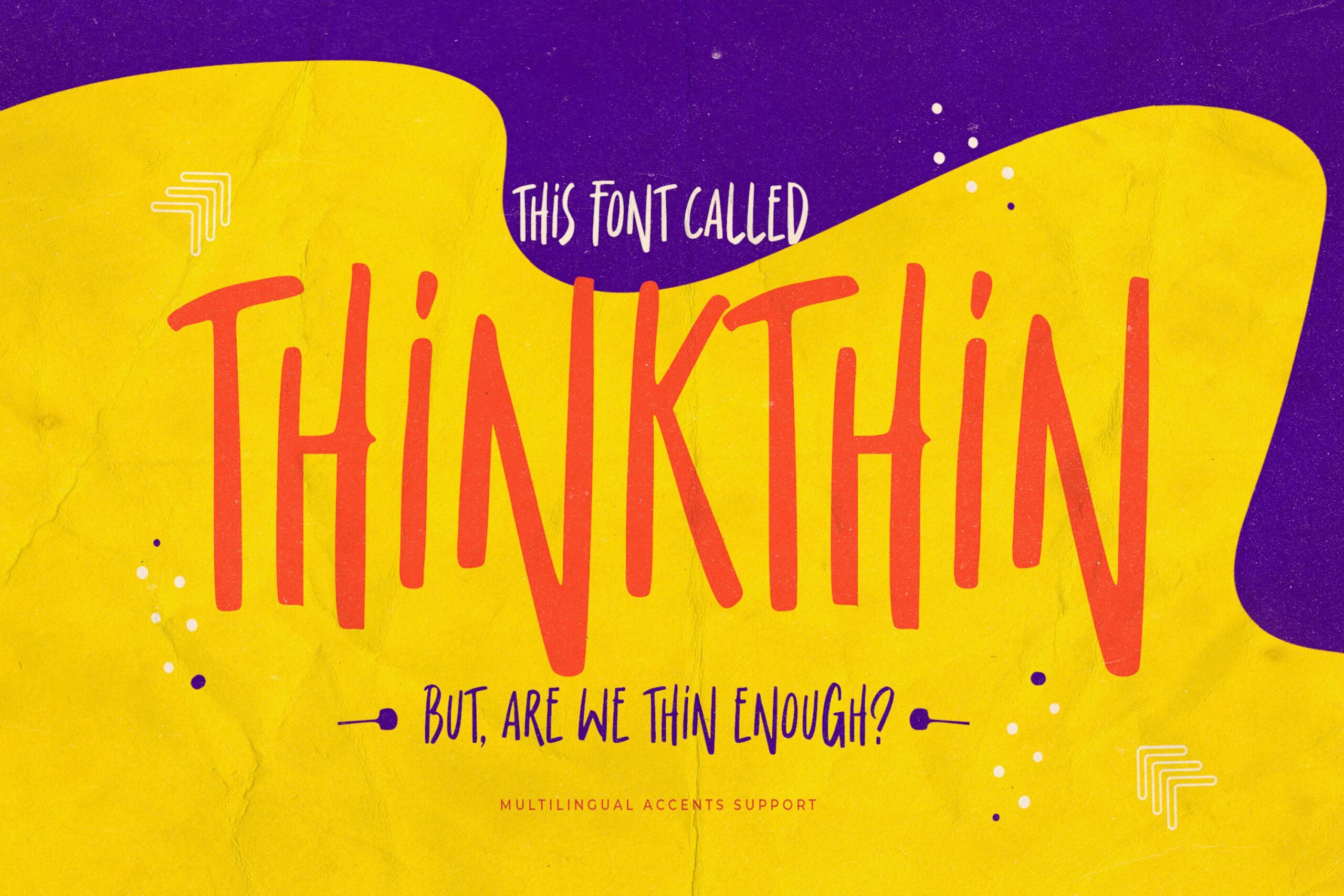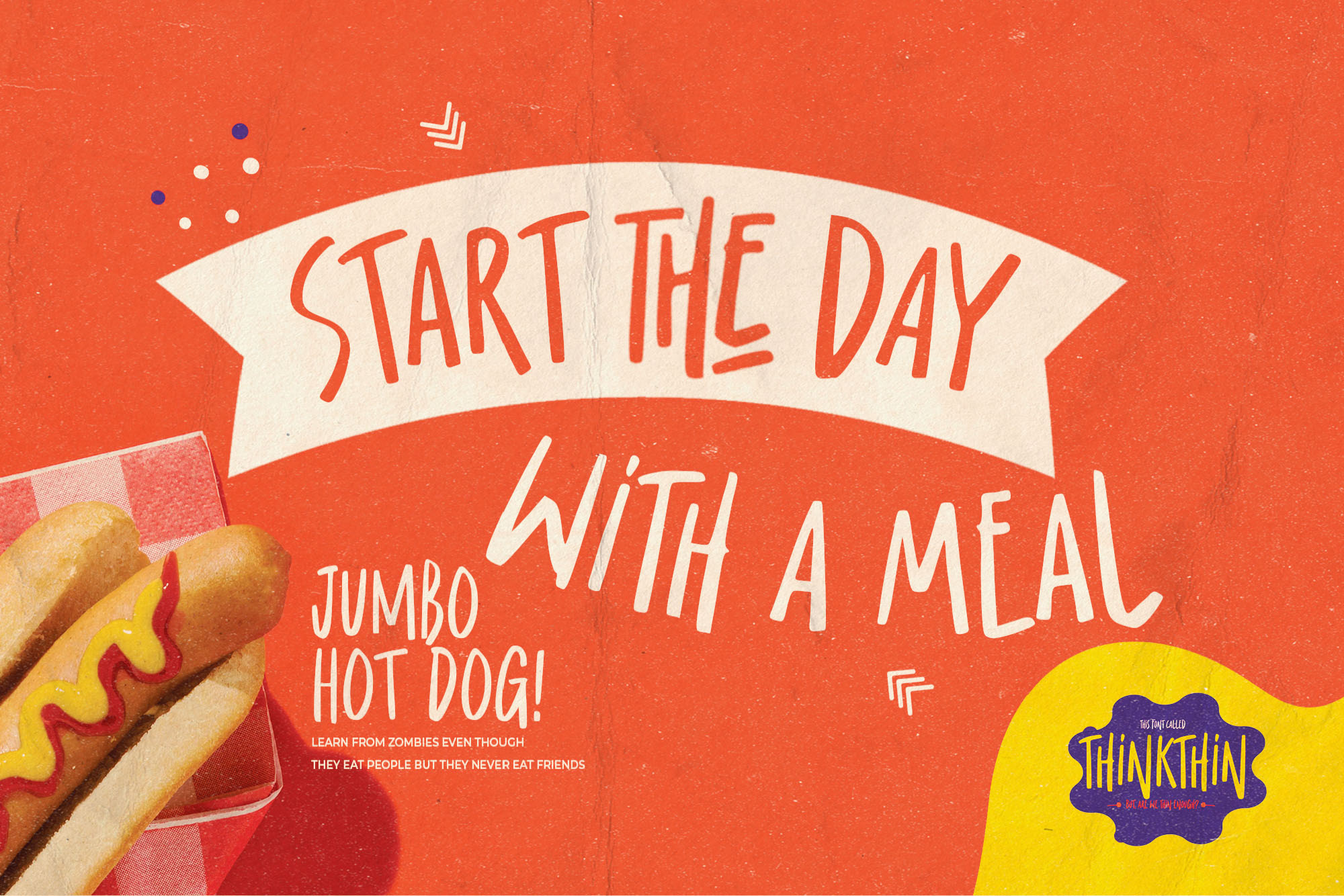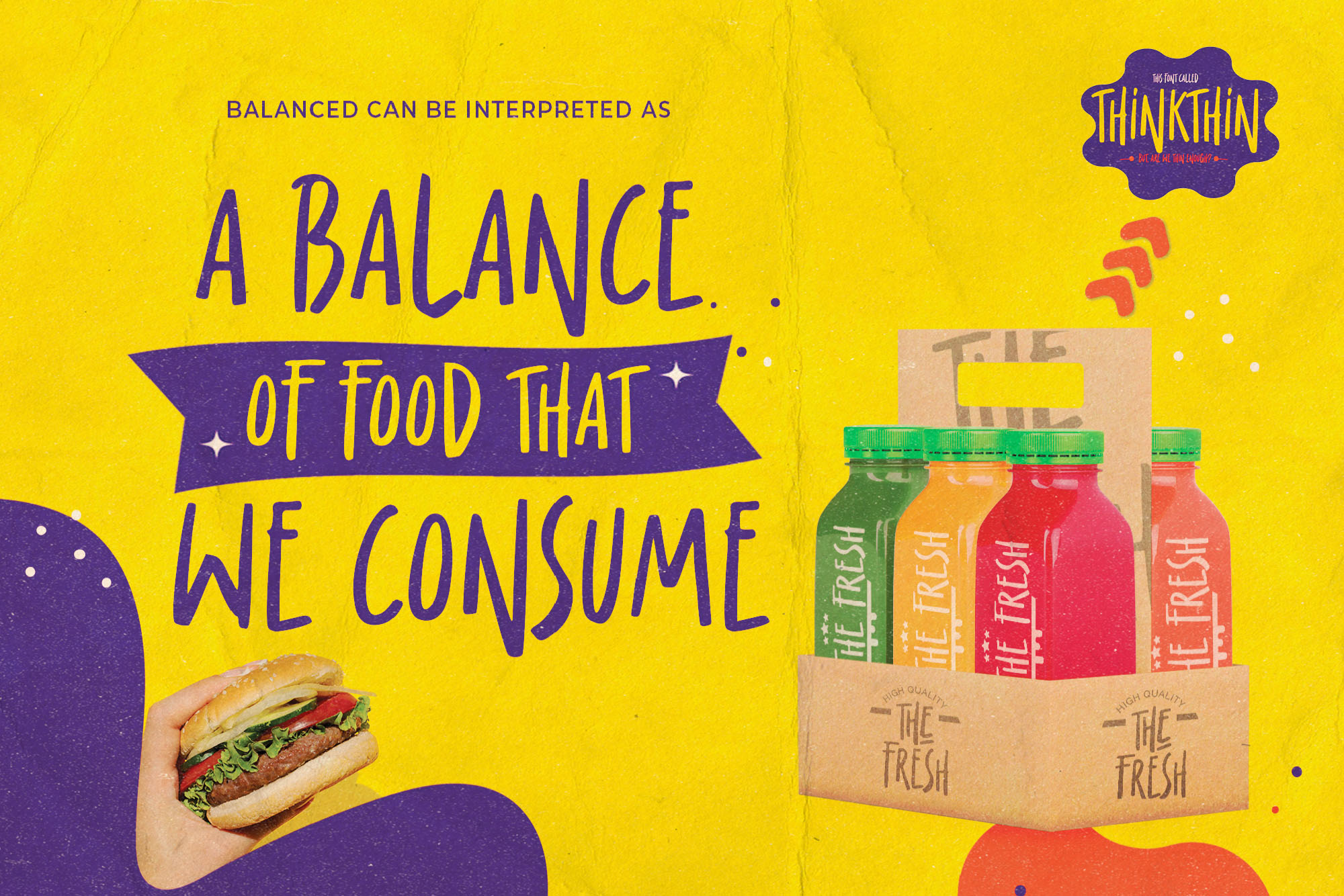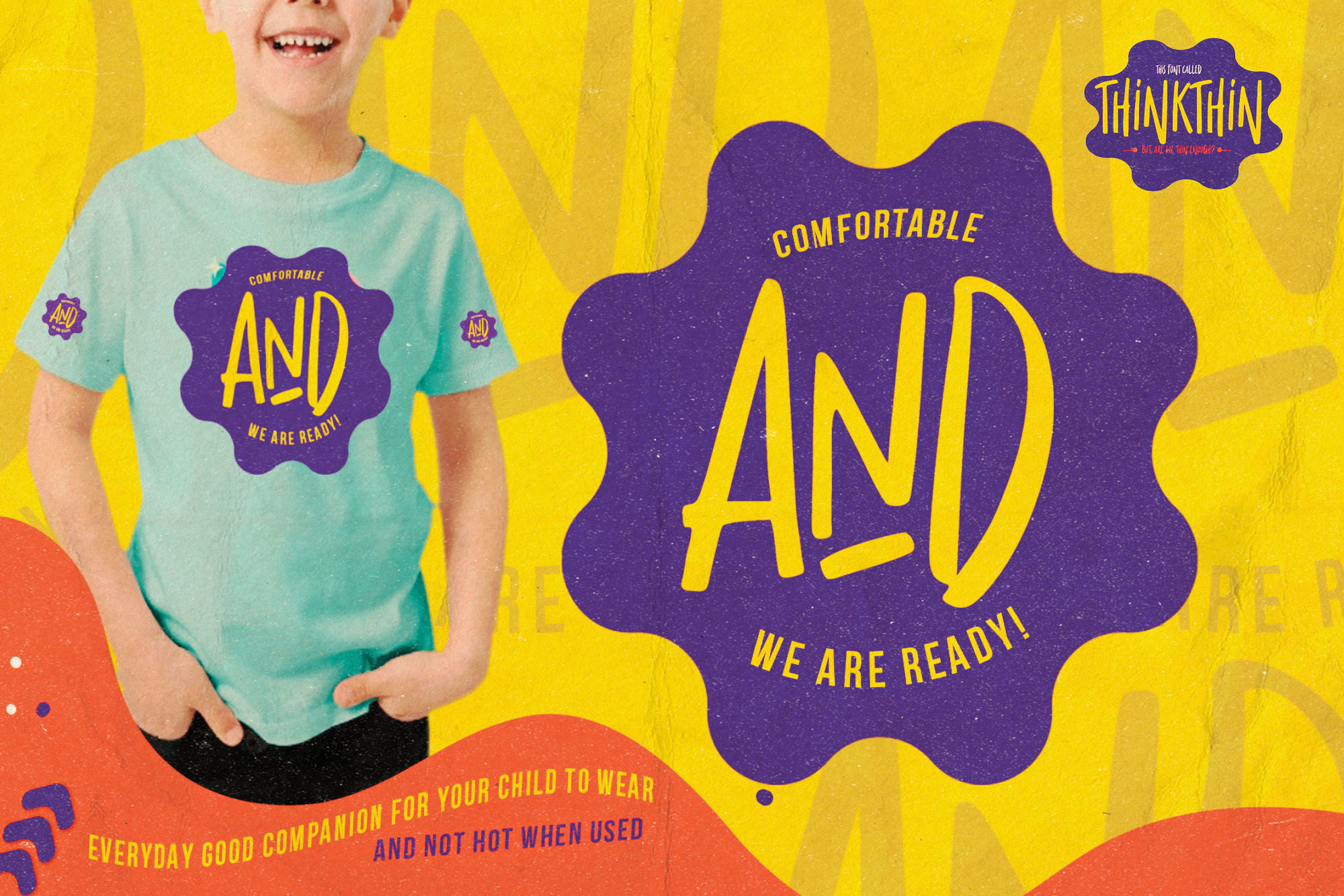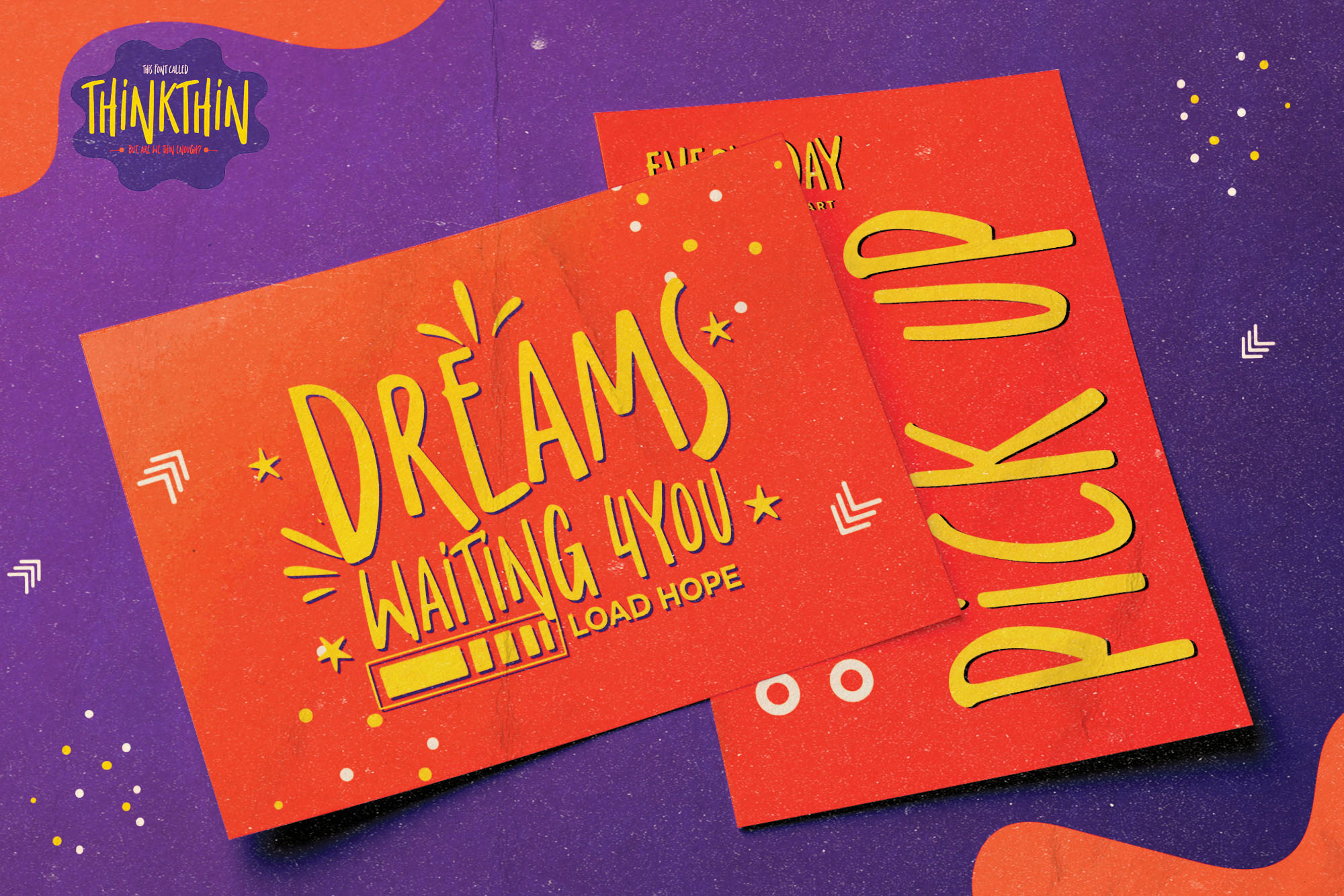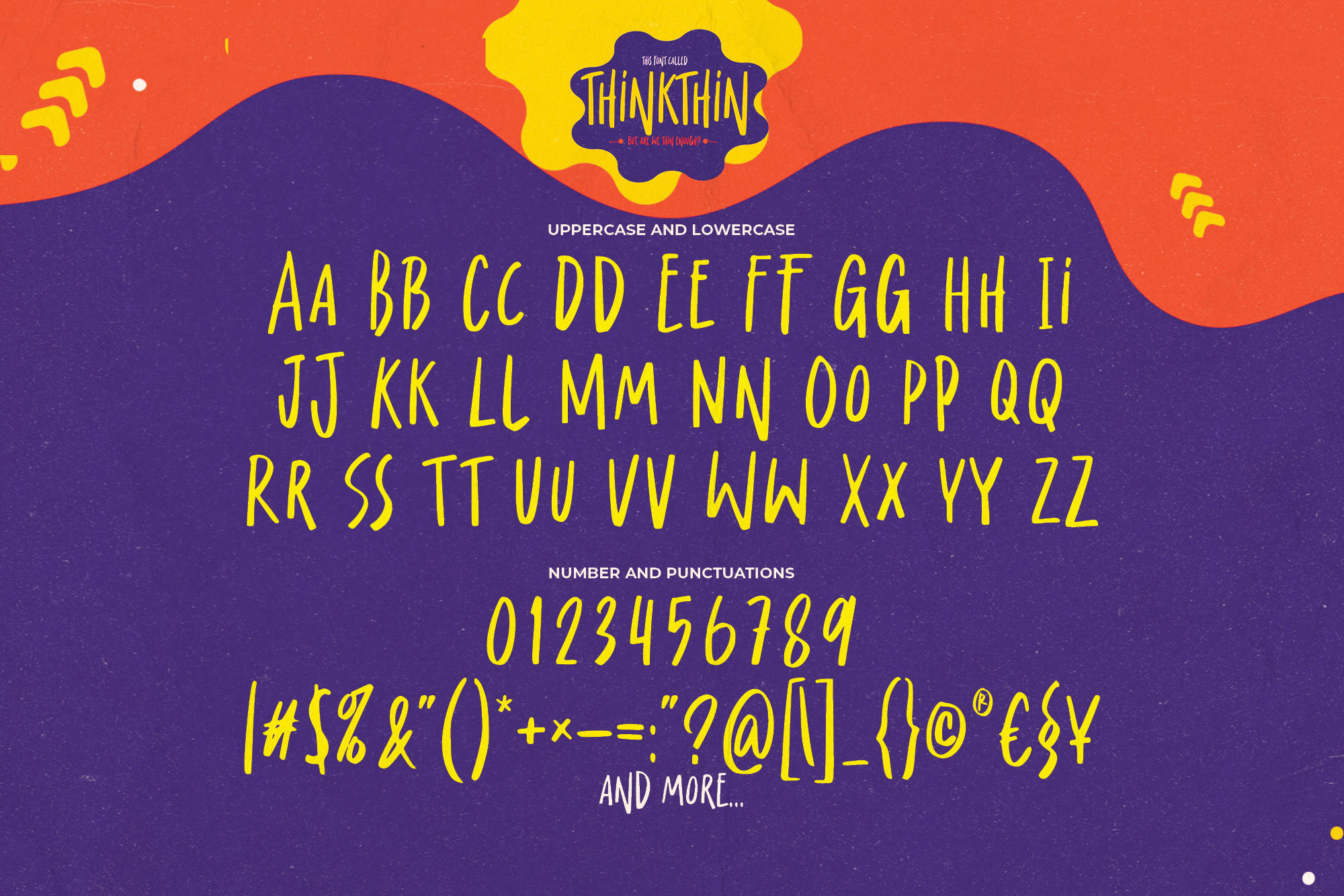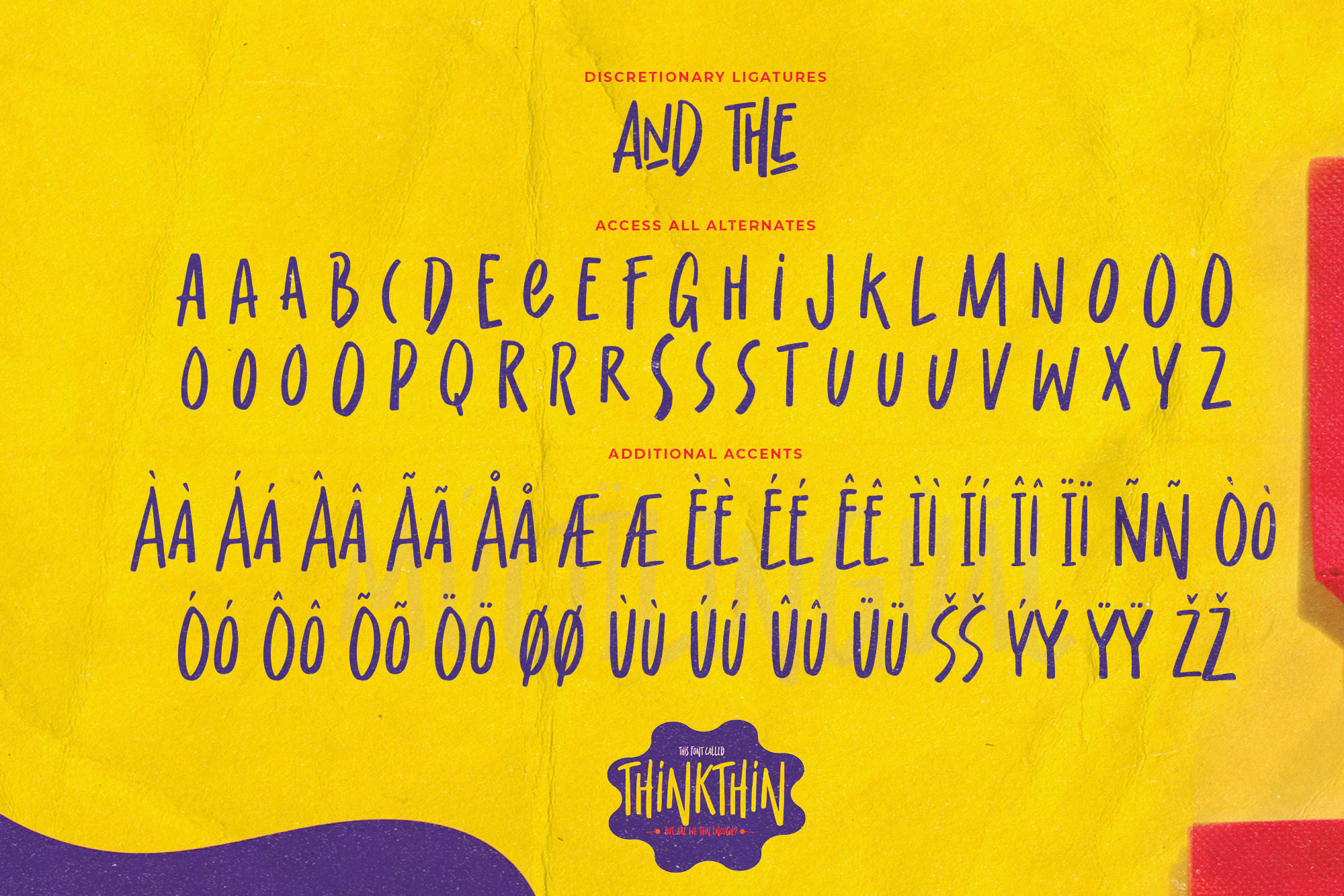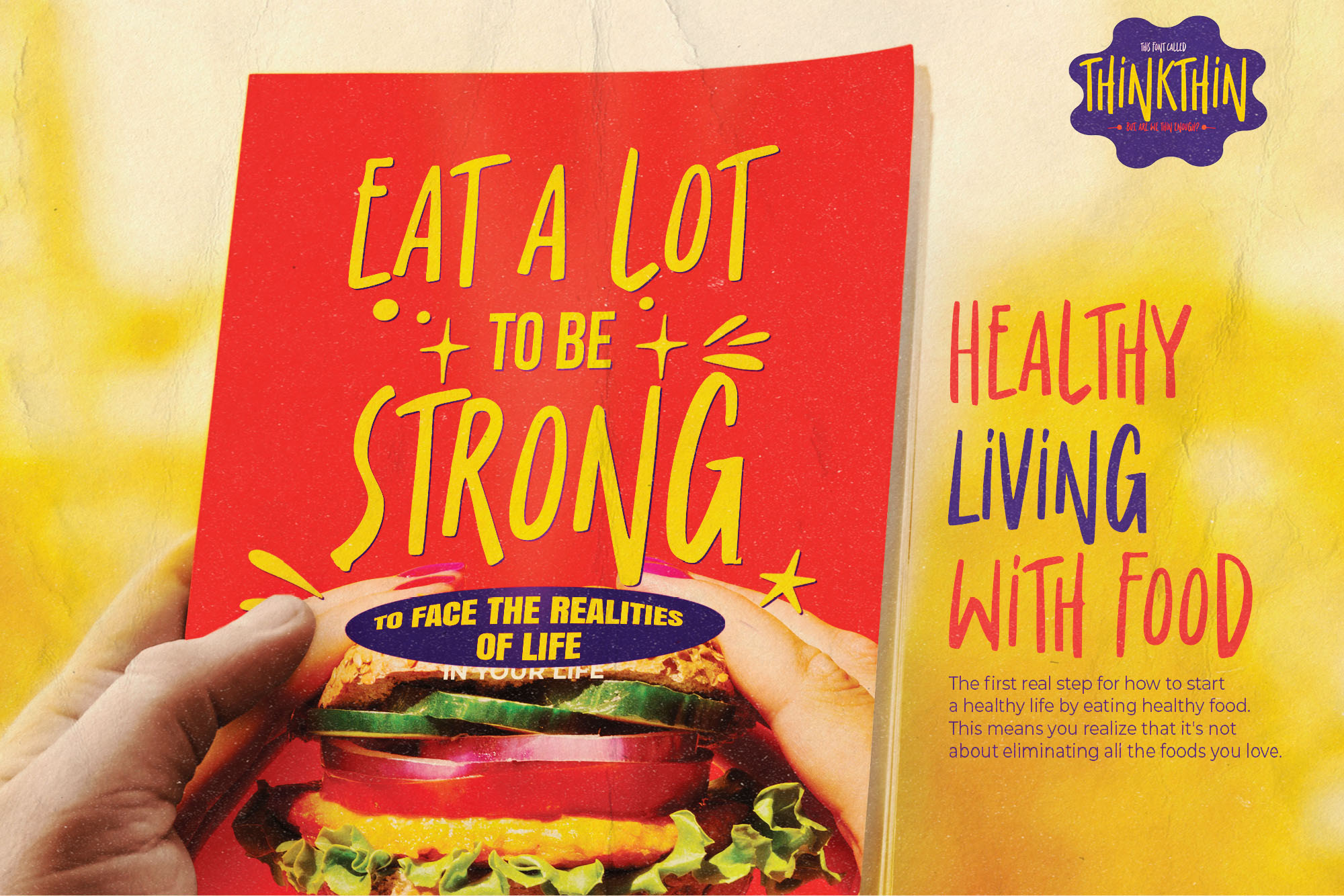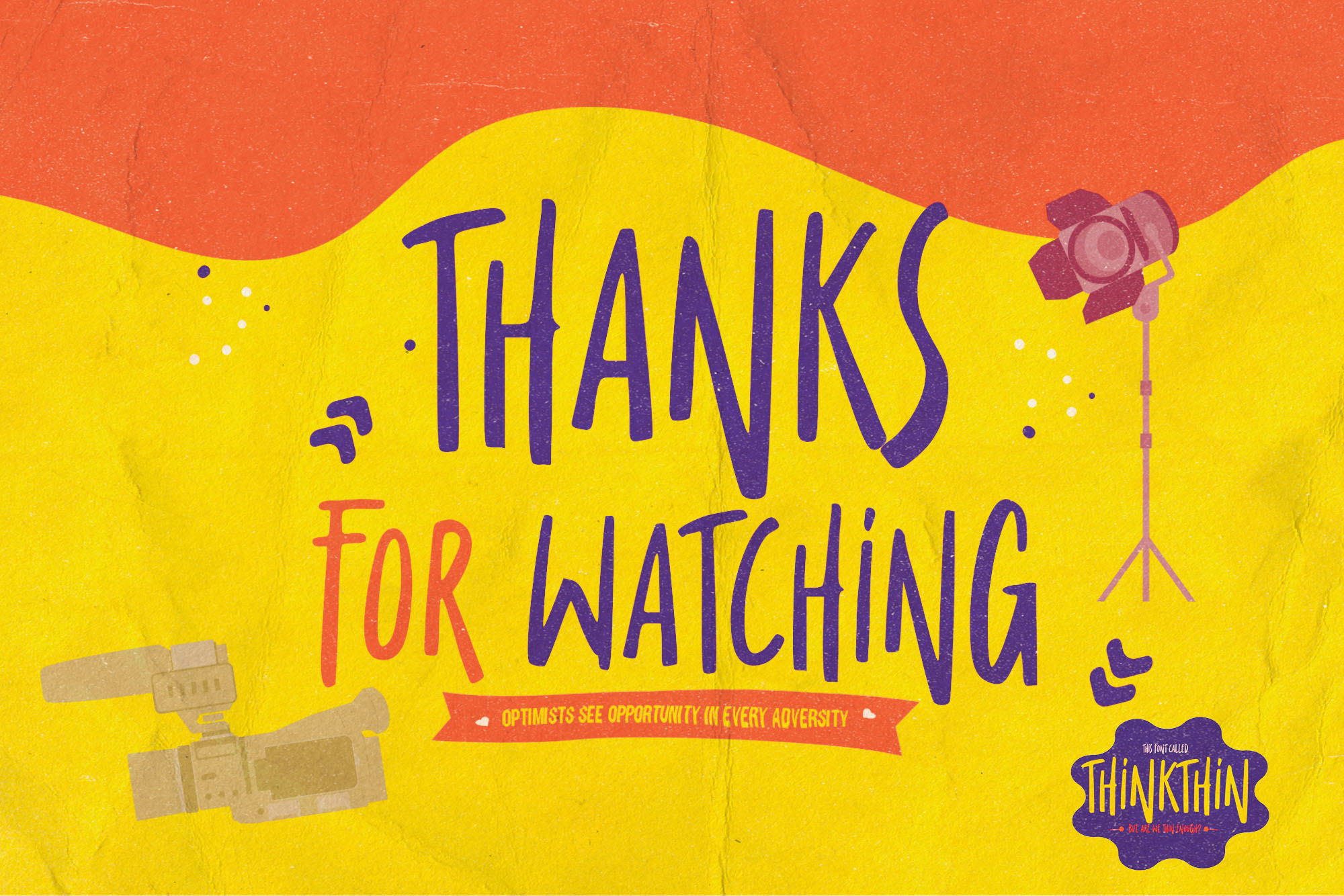
Thinkthin – Display Thin Font , modern style and dramatic movement that is written casually and quickly.
The best for labels,poster,project , designs look modern, rough and unique. It’s perfect for labels, quotes, posters, DIY projects, branding, packaging, greeting cards, websites, photography overlays, signs, scrapbooking, tags and so much more! That is why Thinkthin has a textured, and strong characteristic more natural look. You can activate 2 Ligatures and 42 Alternate glyphs OpenType panel.